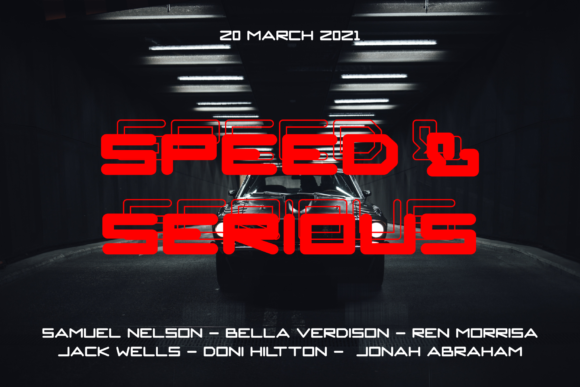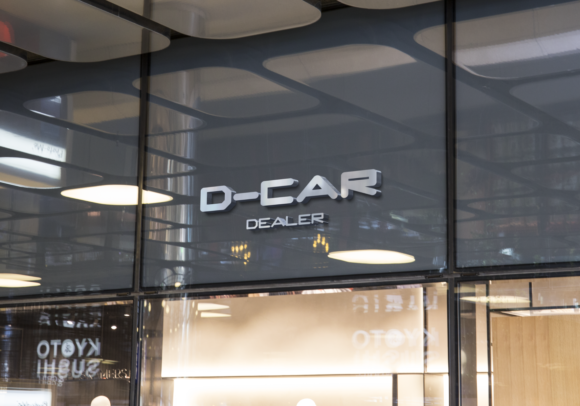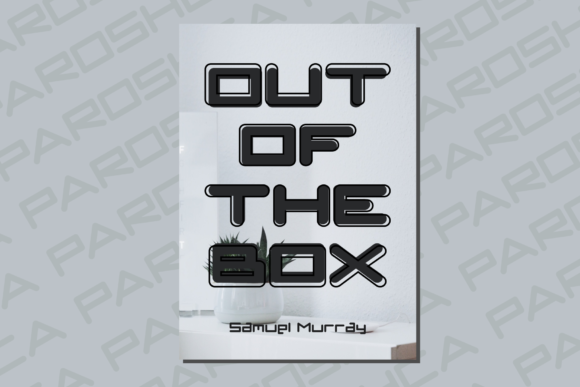
Introduction to Paroshca Font
Paroshca is a futuristic and modern display font.
This font supports English language plus complete multilingualism and standard punctuation that is often used Paroshca is very suitable for logo design, book covers, magazines, and so on.
Key Features of Paroshca Font